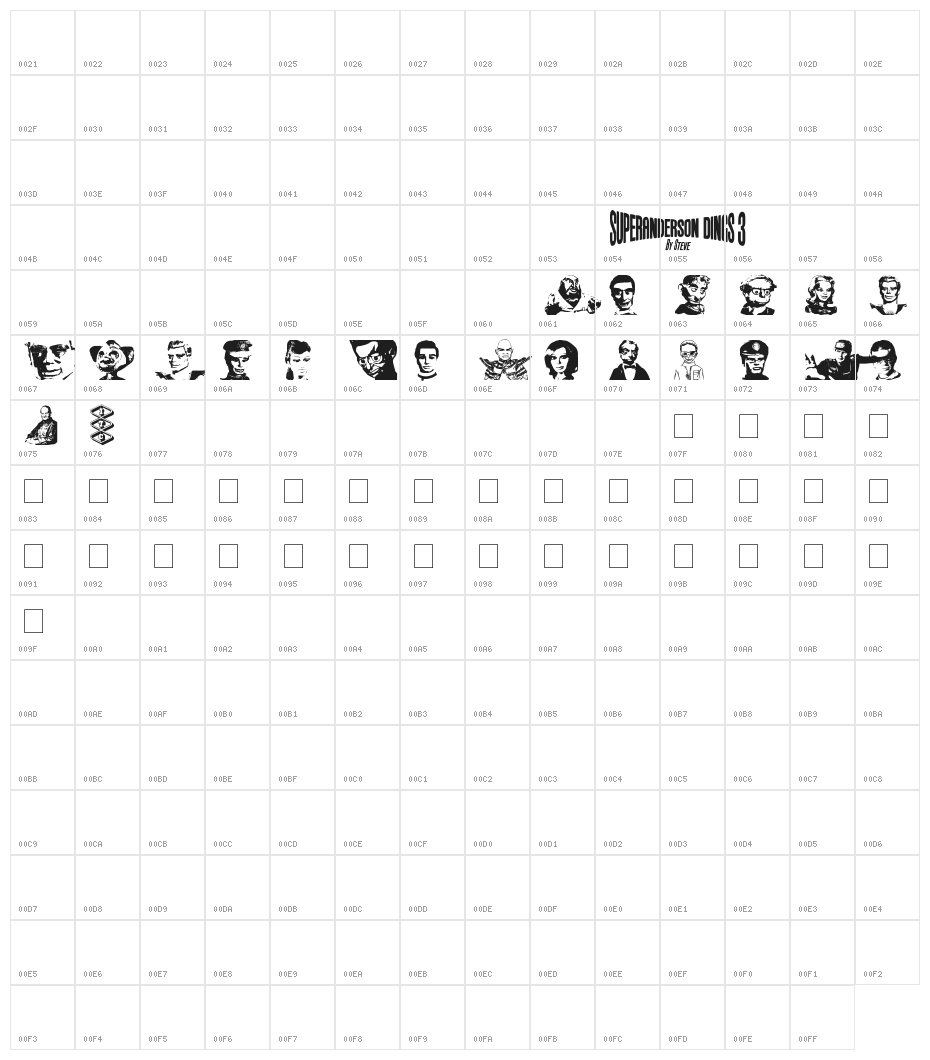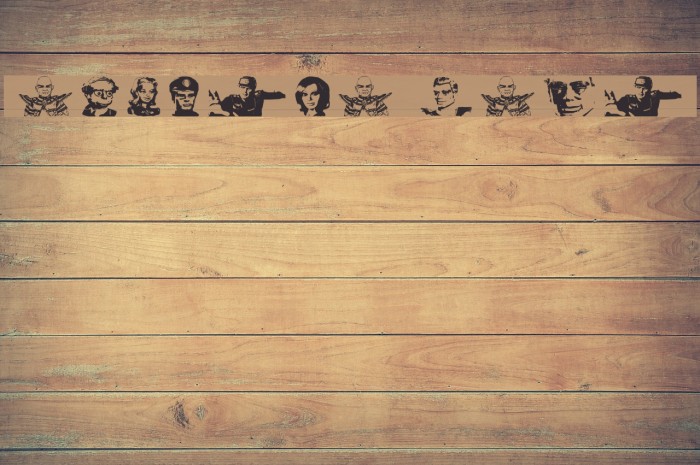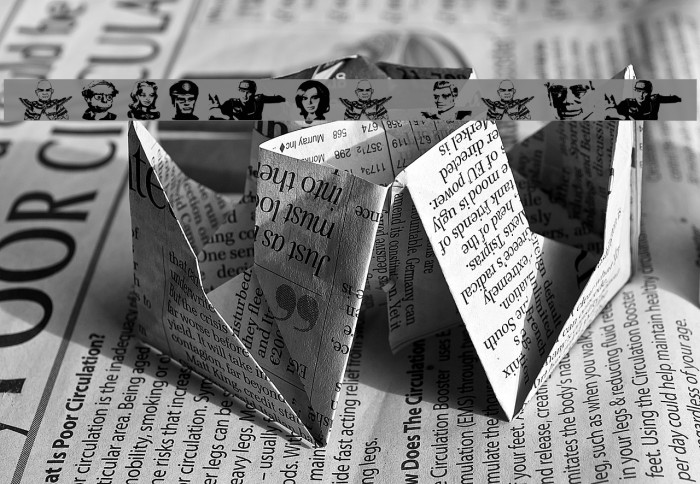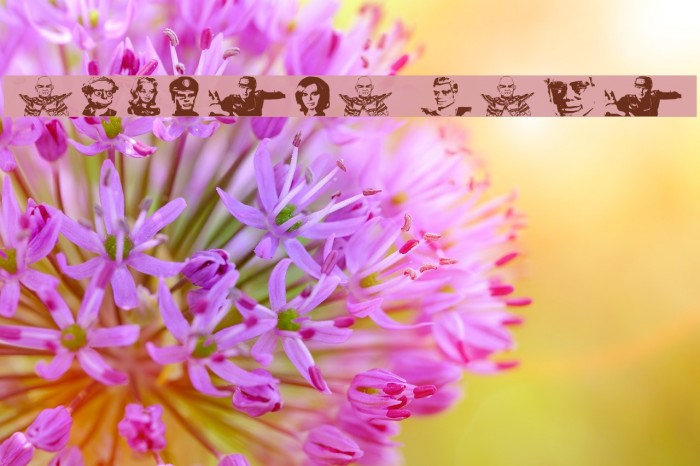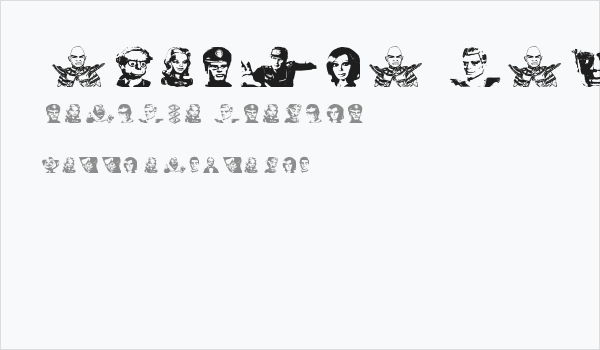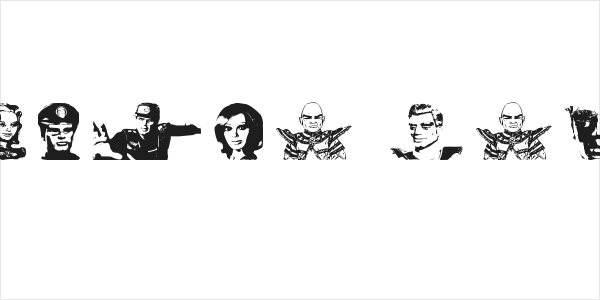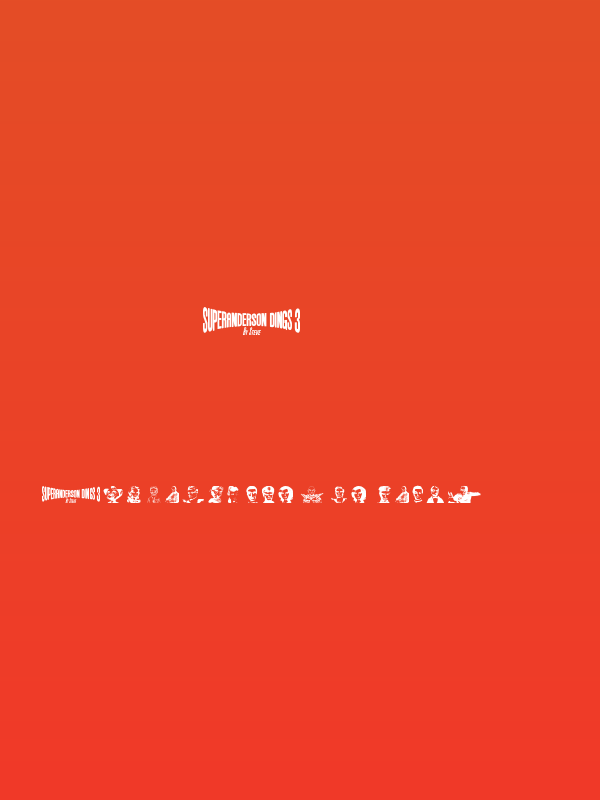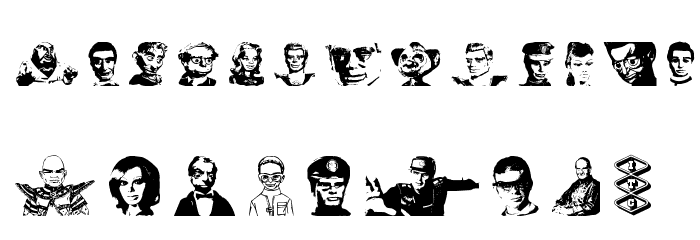
Anderson Dings 3 Font
Anderson Dings 3 Description
A decorative dingbat font featuring stylized illustrations of various characters and symbols, rendered in bold, high-contrast black and white. The letterforms in the title are tall, condensed, and sans-serif with a playful, warped effect, while the main glyphs are graphic icons rather than traditional alphanumeric characters.
| Overall Style | Decorative, Retro, Pop Culture |
| Use Case | Logos, Posters, Themed Graphics, Decorative Elements |
| Proposed Projects | Posters, themed event materials, fan art, novelty designs, retro pop culture projects. |